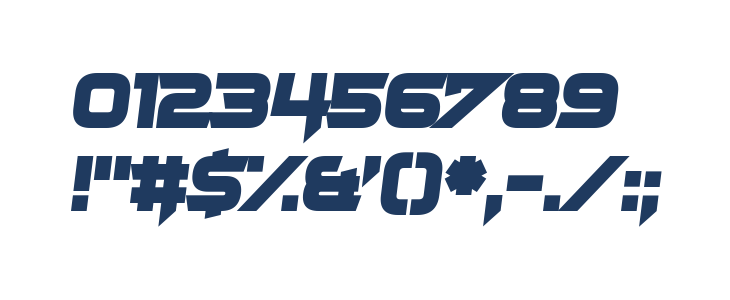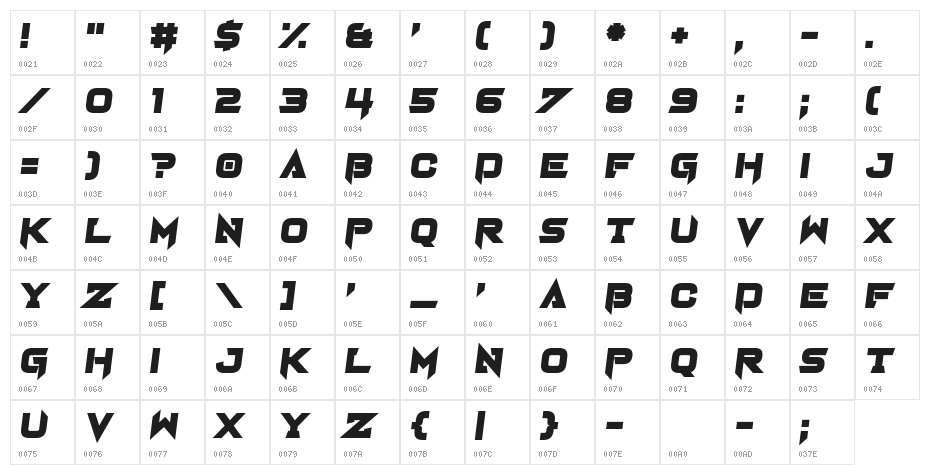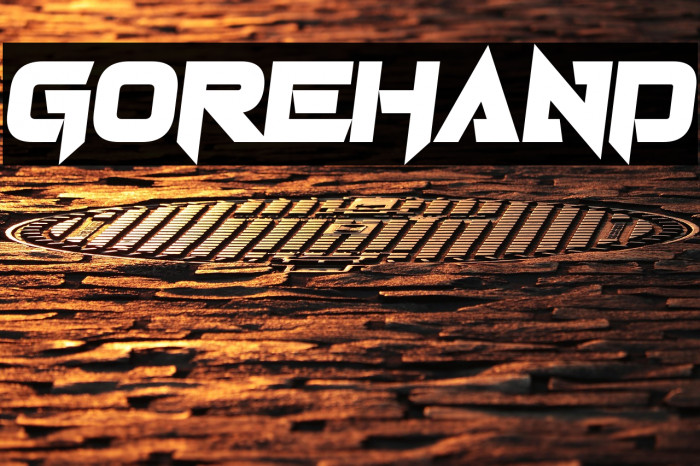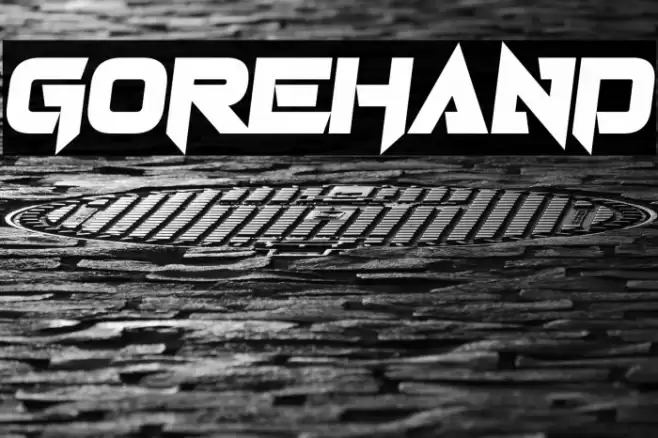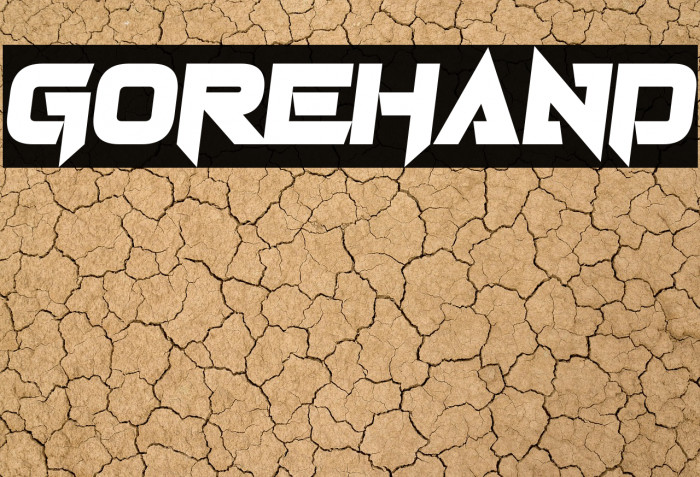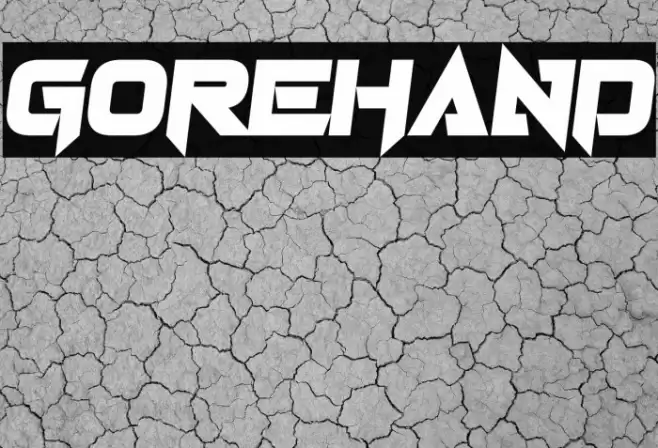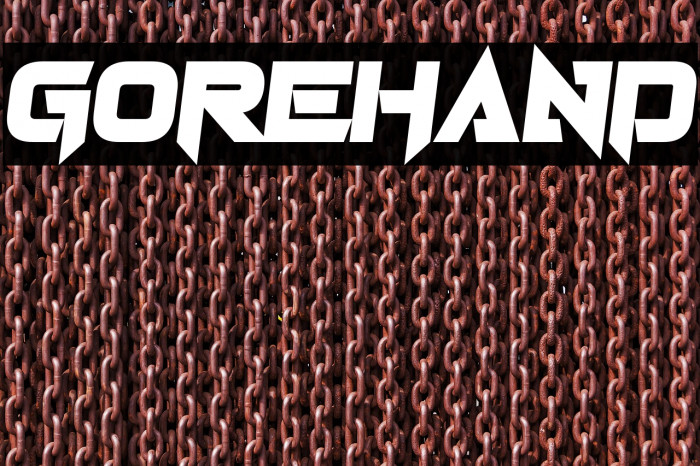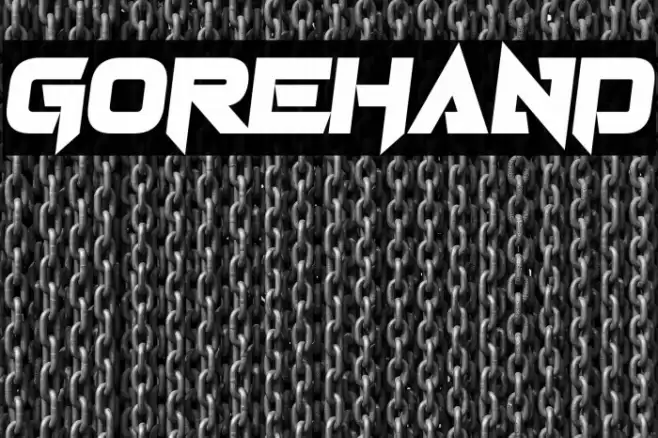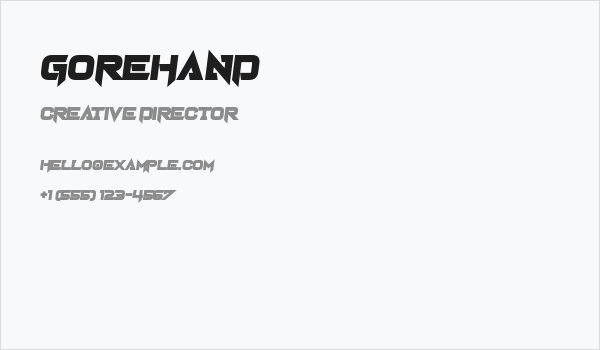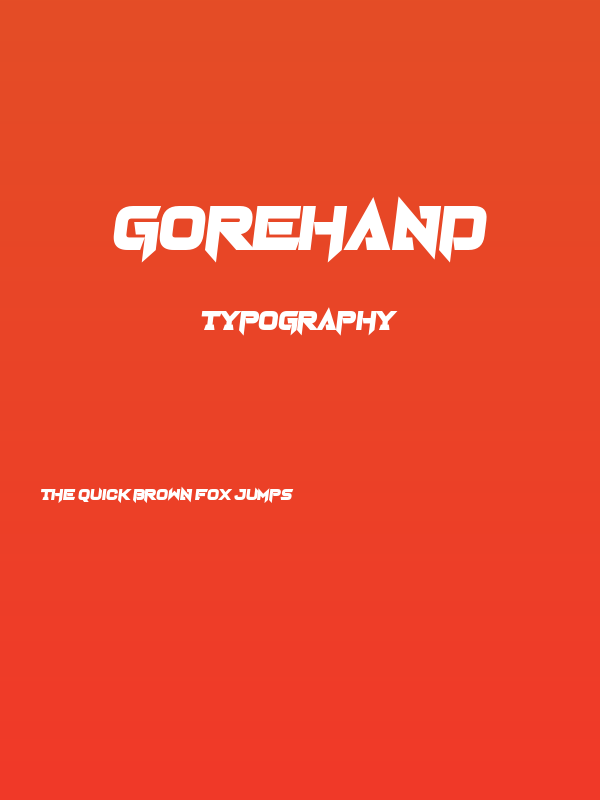
Gorehand Font
Gorehand Description
This font features a bold and aggressive design, characterized by sharp angles and a dynamic, forward-leaning stance. The uppercase letters exhibit a strong geometric influence, with each character displaying a unique combination of thick and thin strokes that create a sense of movement and energy. The numbers and special characters maintain this bold style, ensuring consistency across all glyphs. The font's design is reminiscent of futuristic or sci-fi themes, making it ideal for projects that require a modern and edgy aesthetic.
| Proposed Projects | Ideal for use in video game titles, movie posters, sports branding, and any project requiring a modern, edgy look. |